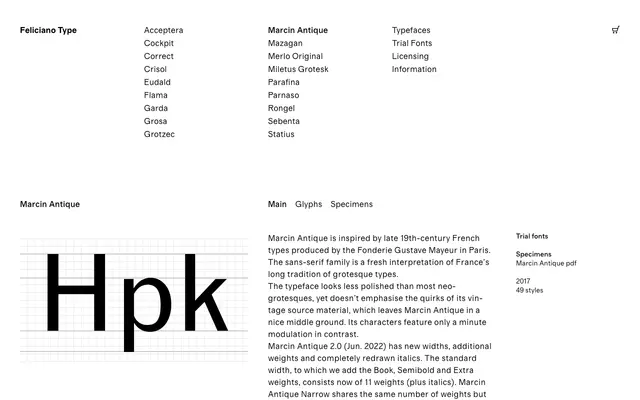
Marcin Antique
A French grotesque revival drawn from 19th-century Fonderie Gustave Mayeur types, sitting between polished neo-grotesque and period-faithful reproduction.
Rooted in late 19th-century French type from the Fonderie Gustave Mayeur, this sans-serif avoids both the clinical finish of contemporary neo-grotesques and the self-conscious quirkiness of strict revivals. Only a minute modulation of stroke contrast separates it from its flattest peers. The 2022 version 2.0 expanded the family to 49 styles across four widths, from a standard cut with 11 weights and italics down to Condensed and X Condensed versions with 8 weights each.
Inspired by late 19th-century French grotesques from the Fonderie Gustave Mayeur, Marcin Antique sits between vintage grotesque and neo-grotesque, with only slight stroke modulation distinguishing it from both camps.